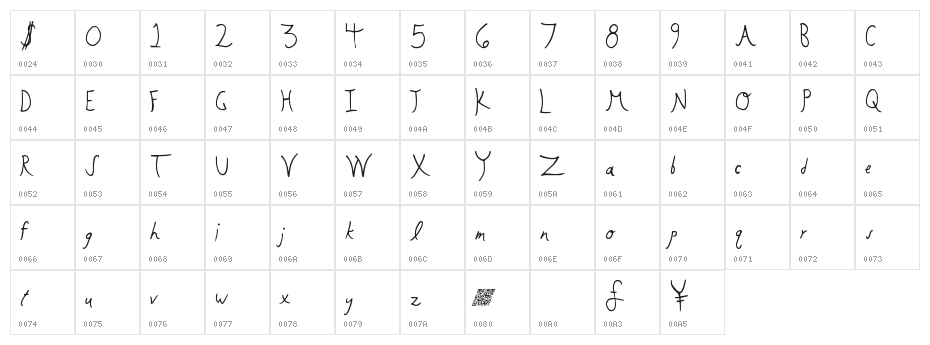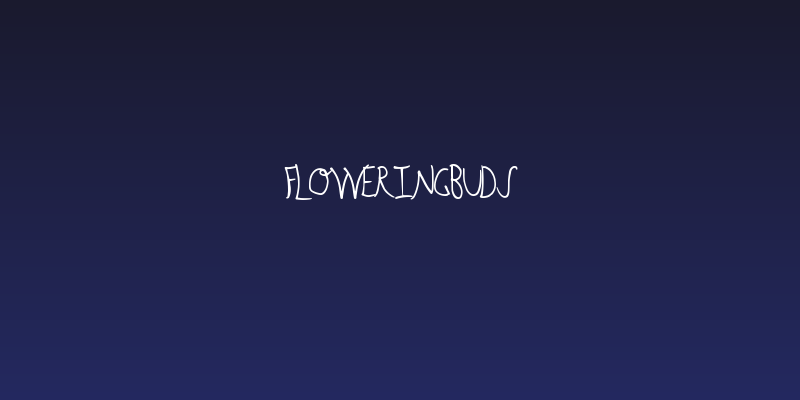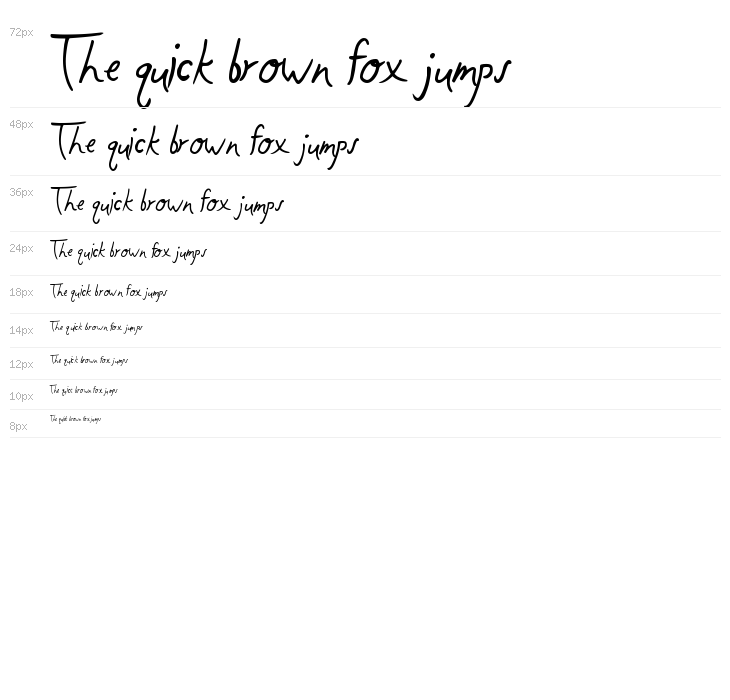
FloweringBuds Font
FloweringBuds Description
This font features a whimsical and playful design, characterized by its flowing, organic lines and slightly irregular shapes. The uppercase letters are tall and slender, with a slight lean that adds a sense of movement and dynamism. The lowercase letters maintain the same playful style, with some characters featuring unique loops and curves that give the font a handwritten feel. The numerals are consistent with the overall style, maintaining the same fluidity and charm. Special characters are creatively integrated, adding to the font's decorative appeal. This font is ideal for projects that require a touch of creativity and personality, such as invitations, greeting cards, or artistic branding.
| Use Case | Headlines, Artistic projects, Invitations |
| Proposed Projects | Ideal for invitations, greeting cards, artistic branding, and creative projects. |